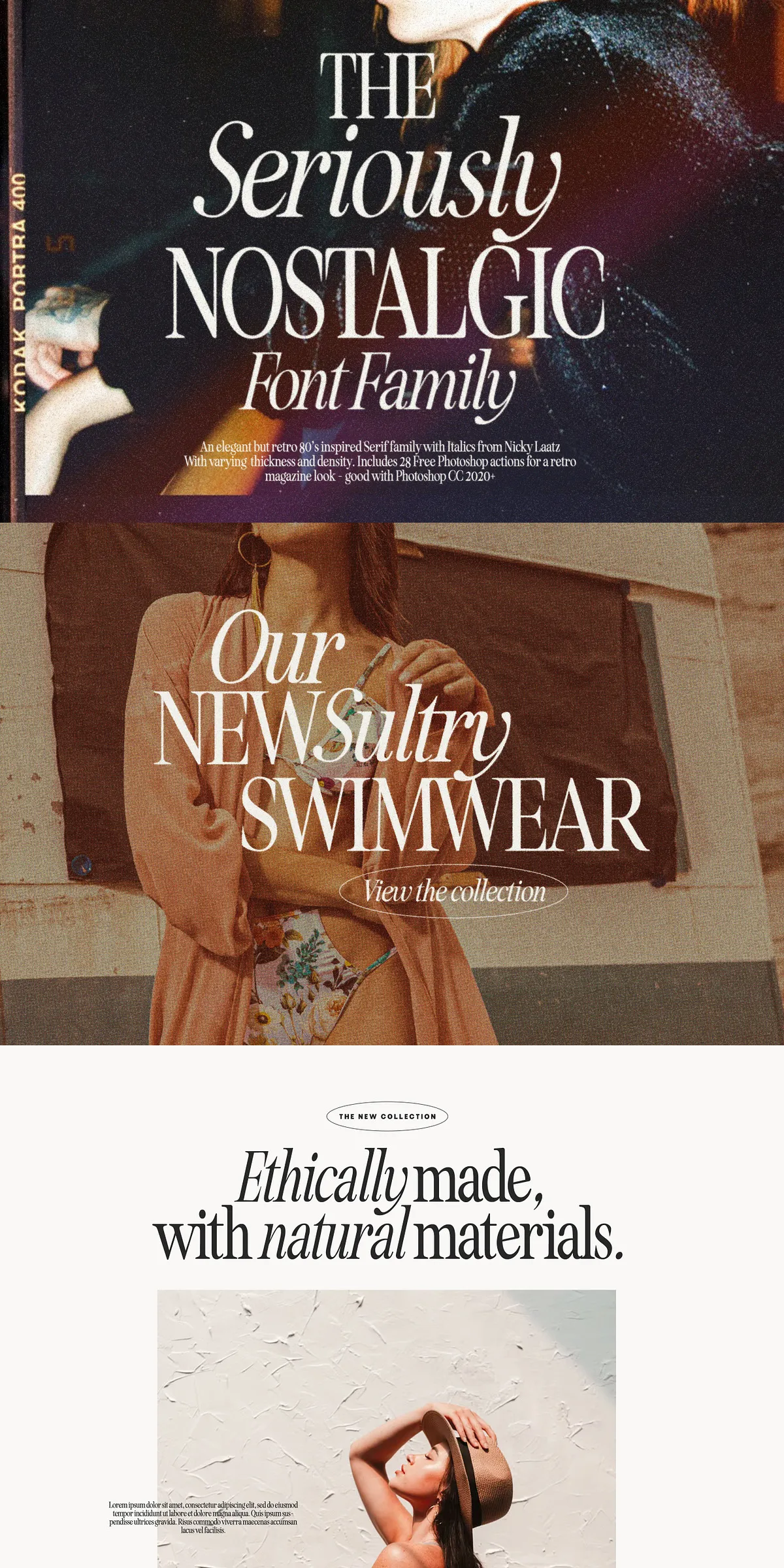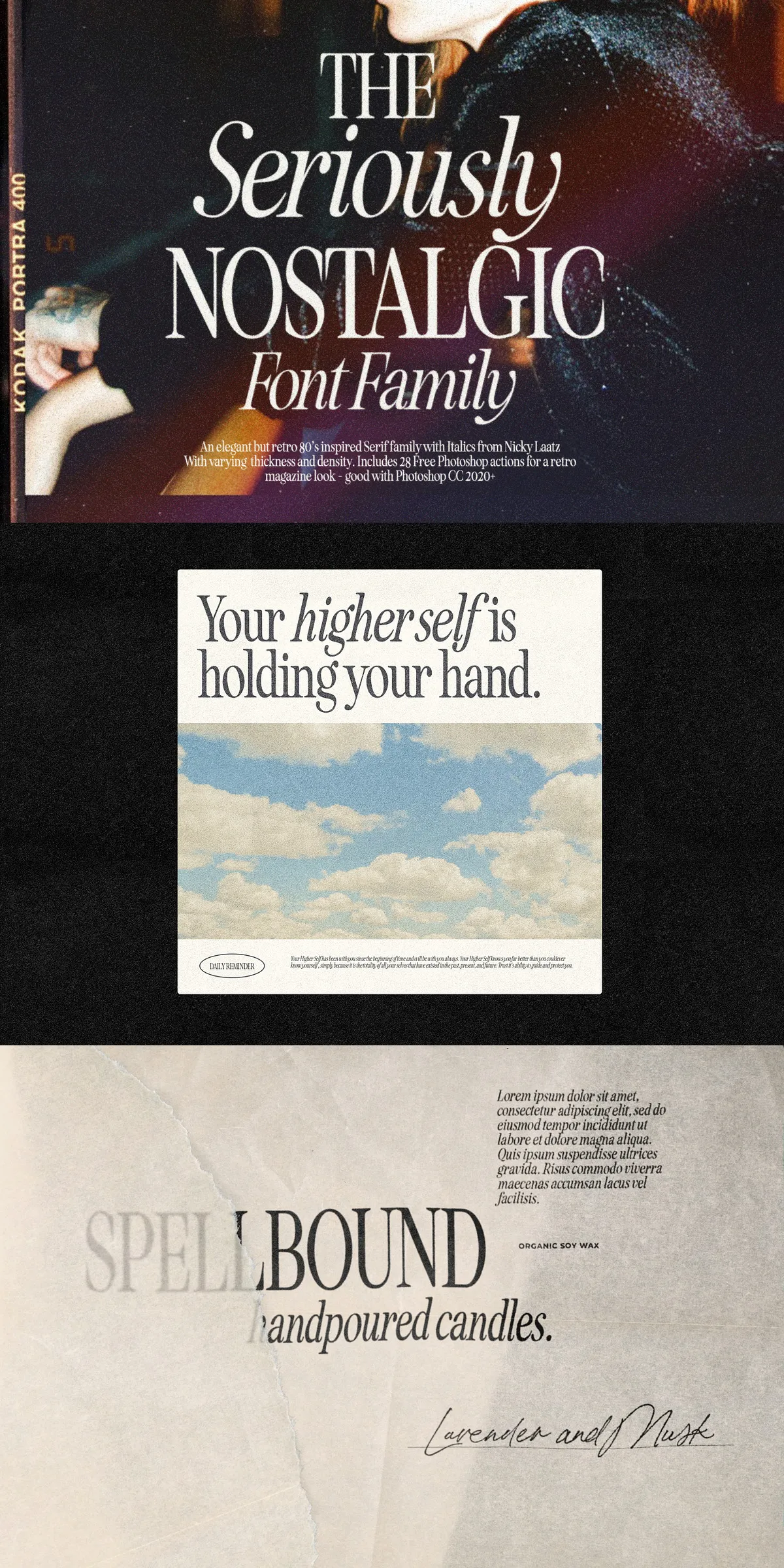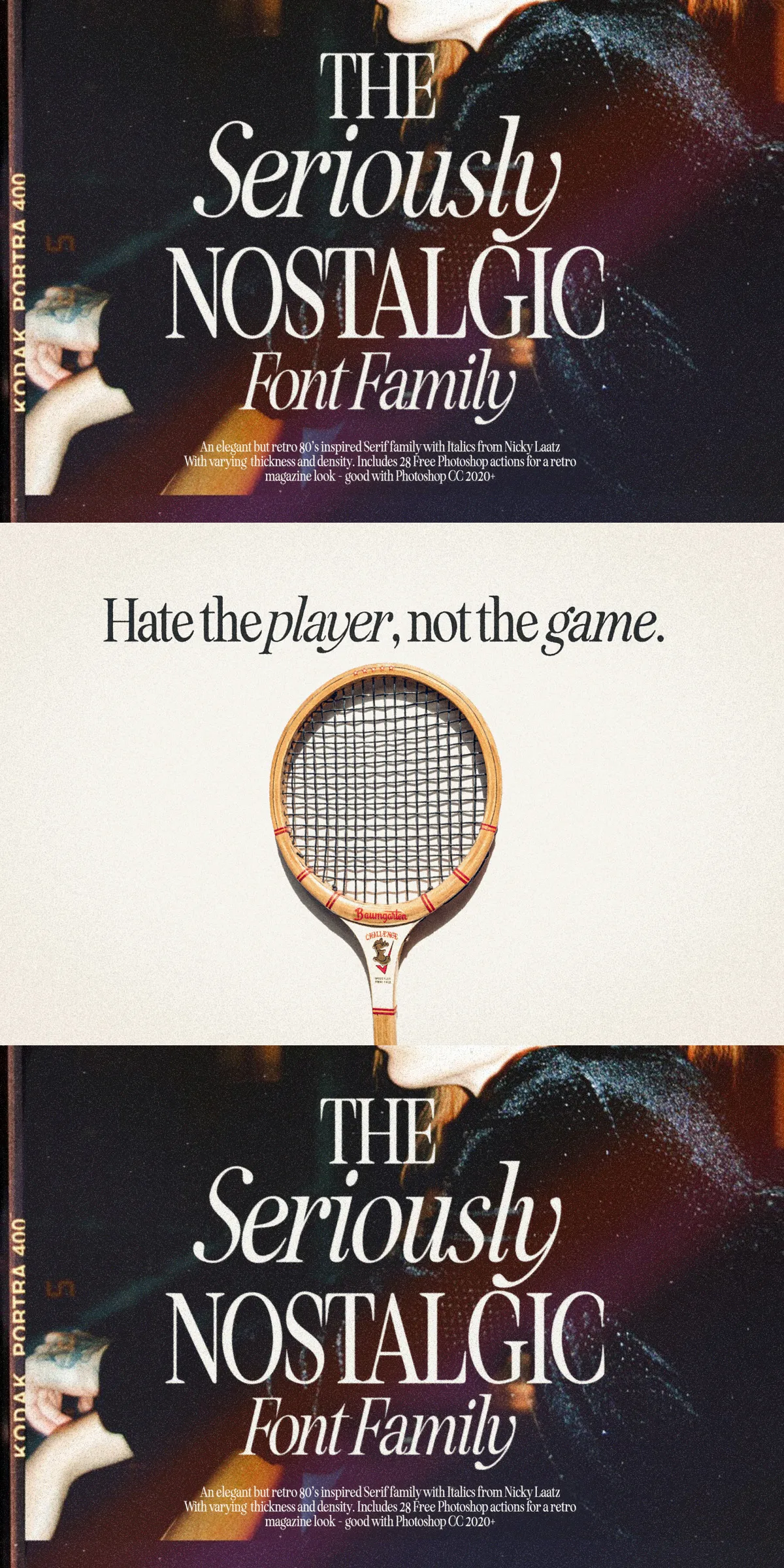
Step into the golden era of bold design, vibrant contrast, and unapologetic flair with Seriously Nostalgic – a striking serif typeface inspired by the iconic aesthetic of 1980s magazine layouts. Whether you’re crafting a retro-themed logo, designing a high-impact poster, or revamping a branding project with vintage energy, this font delivers unmatched authenticity and visual punch with zero compromise.
Why Seriously Nostalgic Stands Out in the Retro Typeface Market
Unlike generic “retro” fonts that mimic the look without the soul, Seriously Nostalgic captures the essence of 1980s design culture—where contrast ruled, letterspacing told stories, and every word screamed personality. This isn’t just a font; it’s a design toolkit that empowers you to build bold, expressive, and professional projects with ease.
Multiple Variants for Maximum Creative Freedom
- Two Contrast Levels: Choose between a high-contrast version for premium, editorial-style elegance and a crisp, medium-contrast variant for enhanced legibility in body text and larger compositions.
- Condensed Forms: Includes multiple condensed widths—perfect for tight layouts, magazine headlines, or creating dynamic text effects through layering.
- Complementary Italic: The stylish italic version adds rhythm and movement, ideal for subheadings, pull quotes, or modernizing classic retro layouts.
- Full Uppercase & Lowercase Support: Fully designed for both cases—use all caps for maximum 80s impact, or mix casing for dynamic text balance.
Pro Tips for Mastering the 80s Aesthetic
- Tighten Letterspacing for Headlines: Reduce spacing between letters in large titles to create that tight, punchy, in-your-face 80s feel.
- Loosen Spacing for Body Text: Increase tracking slightly in paragraph text for better readability without losing stylistic character.
- Mix & Match Styles: Combine regular with condensed, italic, or high-contrast variants to create layered, dynamic compositions.
- Use All Caps Strategically: Embrace the power of uppercase letters for logos, badges, and impactful taglines—this is where the 80s vibe truly shines.
Designed for Global Creators – Full Multilingual Support
Great design transcends borders. Seriously Nostalgic supports a broad range of languages, making it ideal for international branding and multilingual projects. The font includes full character sets for:
- English, French, German, Italian, Portuguese, Spanish, Swedish, Norwegian, Swiss German, Luxembourgish
- Regional variants: German (Switzerland), Irish, Friulian, Galician, Luo, Romansh, and Low German
- Full punctuation, numerals, symbols, and ligature support
This makes it perfect for designers working on campaigns, websites, magazines, or packaging that serve diverse audiences across Europe and beyond.
- Advanced Typographic Features: OpenType features like stylistic alternates, ligatures, and swash caps for rich expressiveness.
Perfect for a Wide Range of Creative Projects
No matter your niche, Seriously Nostalgic fits seamlessly into your creative pipeline:
- Magazine & Editorial Design: Rebuild vintage covers with authentic 80s character.
- Branding & Logotypes: Create unforgettable identities for music, fashion, or retro-inspired businesses.
- Posters, Labels & Packaging: Make your products stand out on shelf or wall.
- Web & UI Text: Use in headings and banners with bold impact.
- Merchandise & Apparel: Ideal for T-shirts, stickers, and branded goods with attitude.